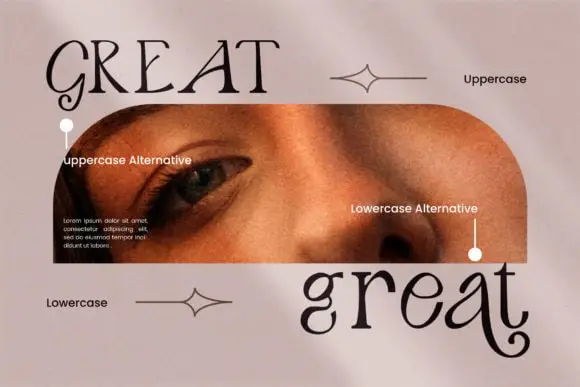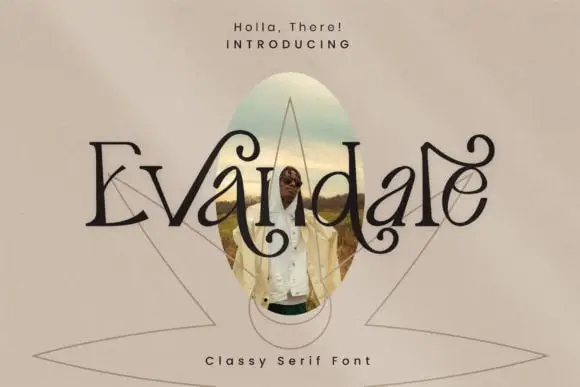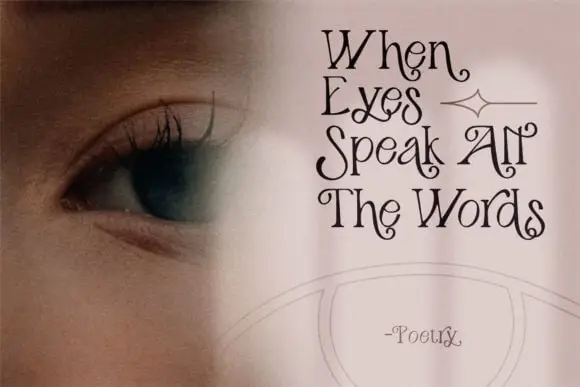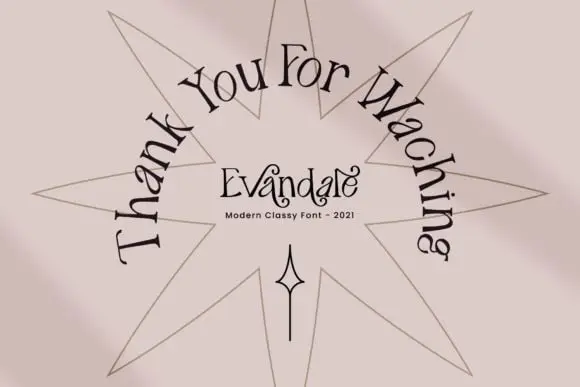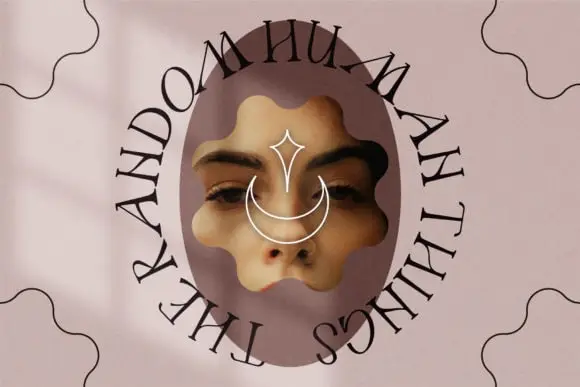
Magestic.Std-Evandale Font Extended Latin
The Magestic.Std-Evandale Font Extended Latin is a beautifully crafted typeface that adds elegance and sophistication to your designs. This font features a unique blend of classic and modern elements, making it suitable for a variety of applications.
• Weights: Light, Regular, Medium, Bold
• Ideal for branding projects, logos, and promotional materials.
• Perfect for both print and digital media, including websites and user interfaces.
• Utilize the various weights to create visual hierarchy in your designs.